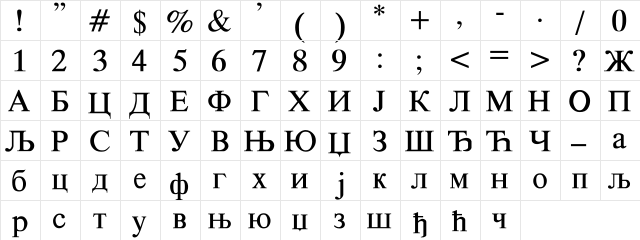
Cir_tms-Normal Regular Font Preview
Cir_tms-Normal Regular
Design Context for Cir_tms-Normal Typeface
Cir_tms-Normal offers clean, dependable letterforms without strong stylistic allegiance, making it a practical choice for designers who need flexibility.